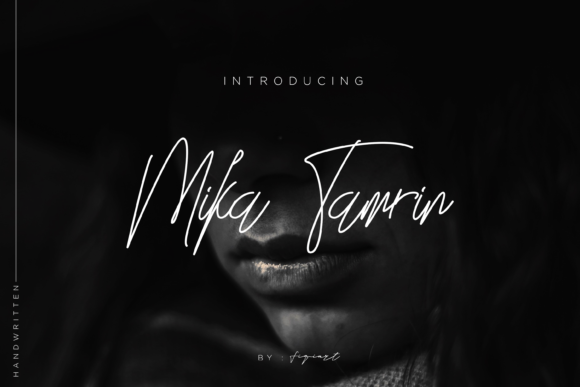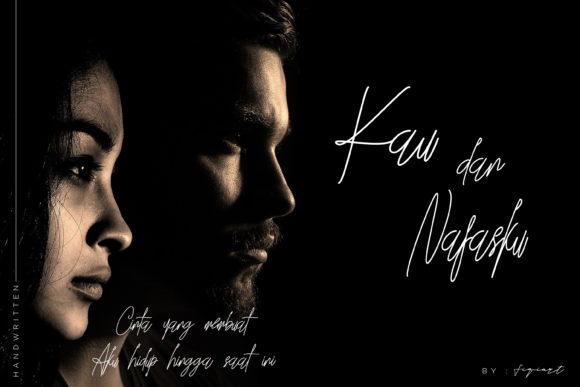
Mika Tamrin Font
About Mika Tamrin Font
Mika Tamrin feels equally charming and elegant. This stunning handwritten font is a stylish homage to classic calligraphy. It features a varying baseline, smooth lines, gorgeous glyphs and stunning alternates.